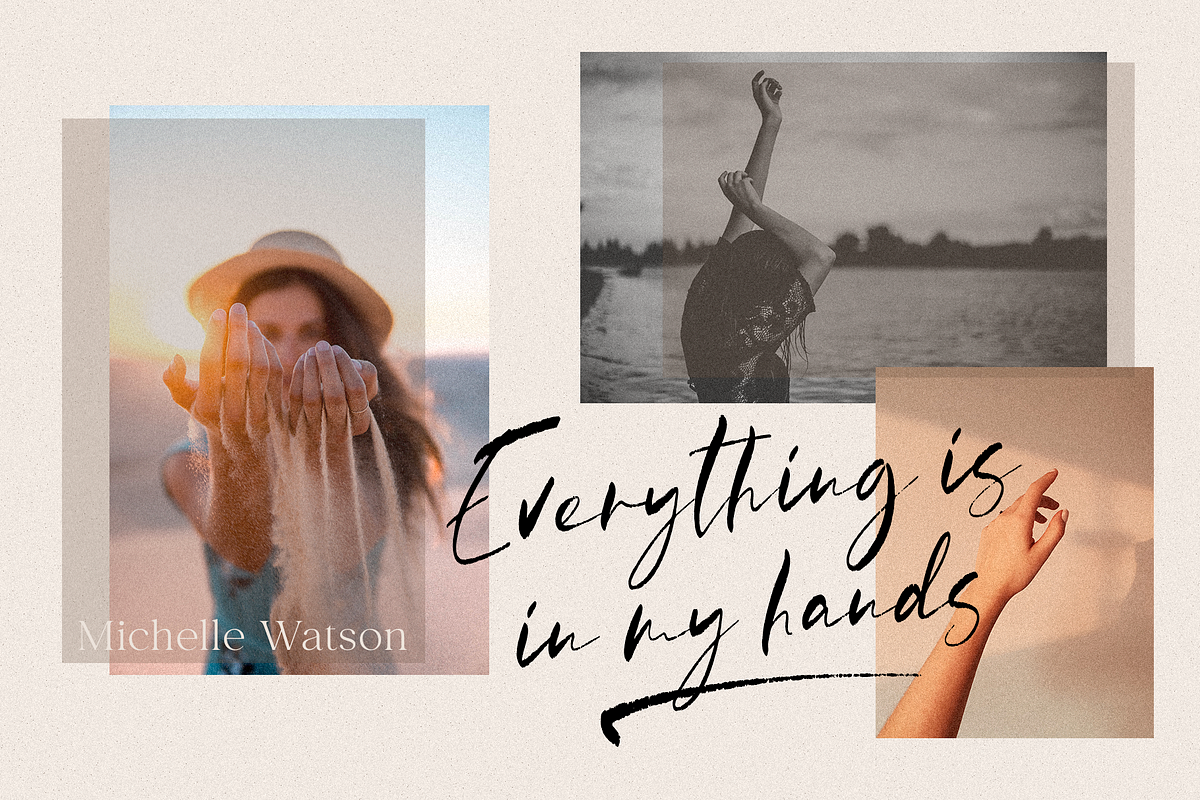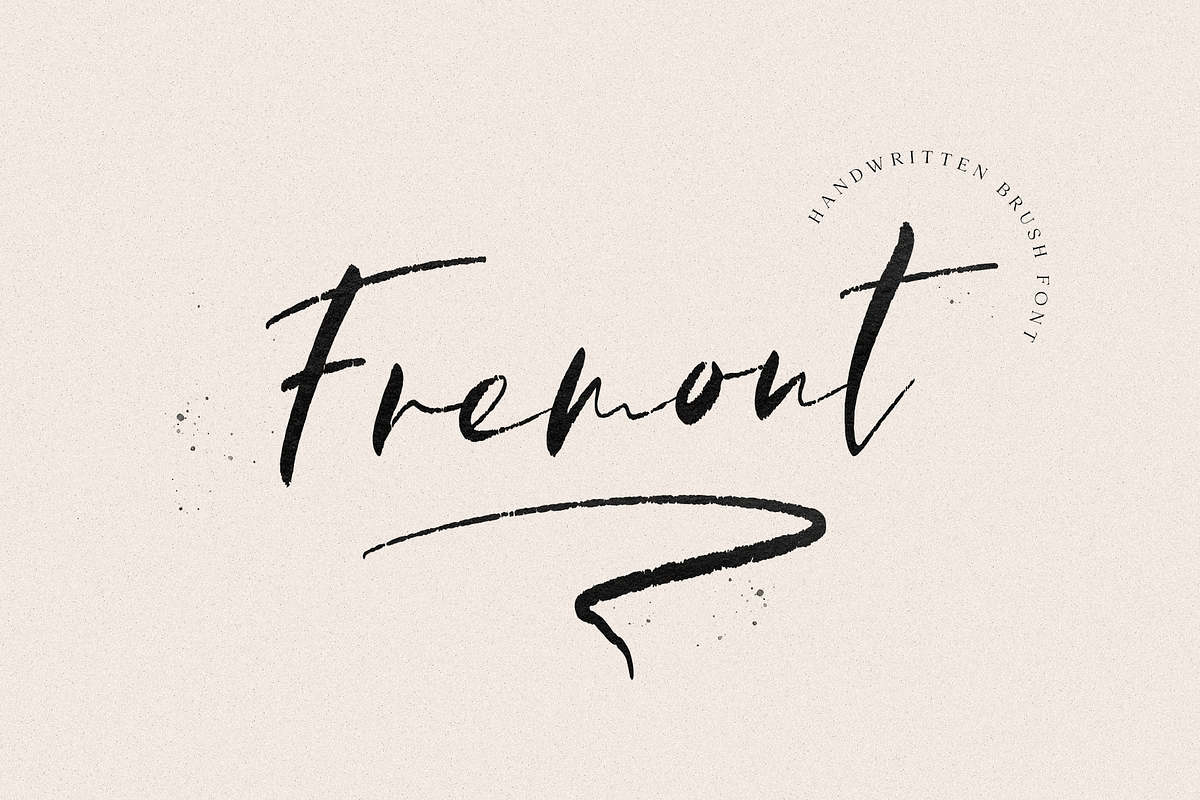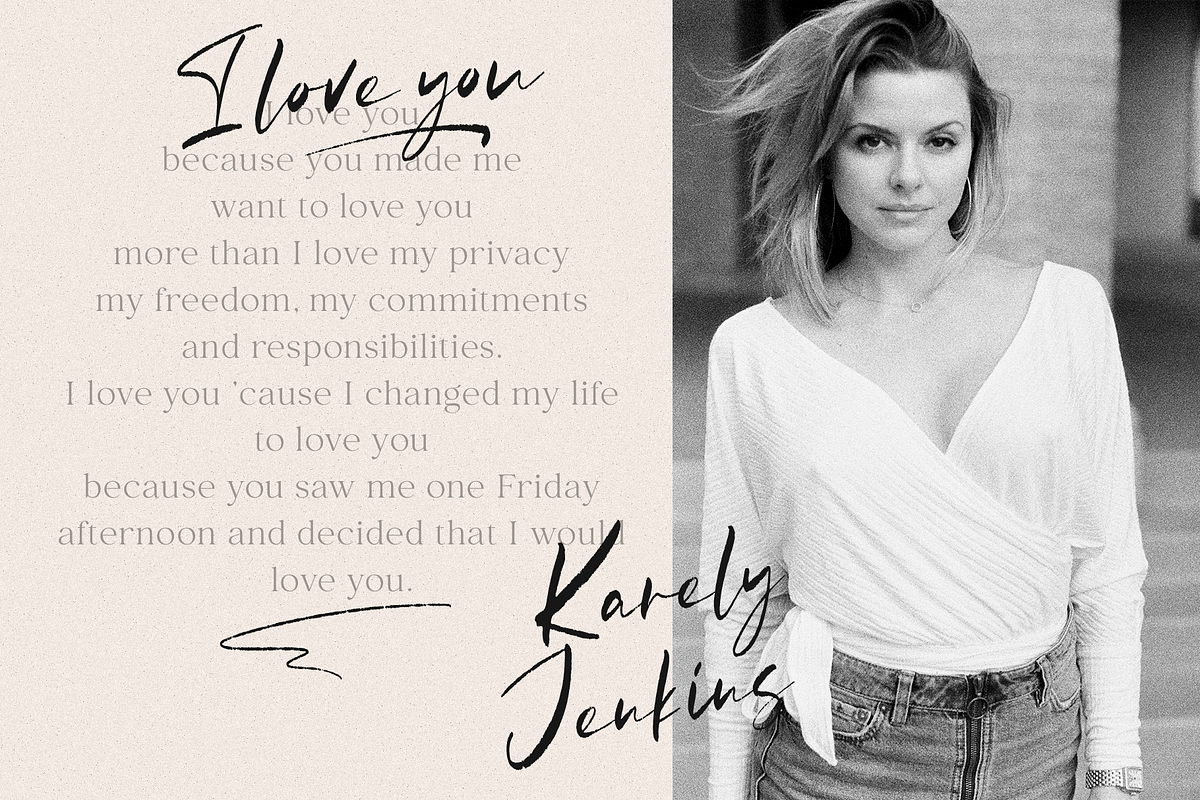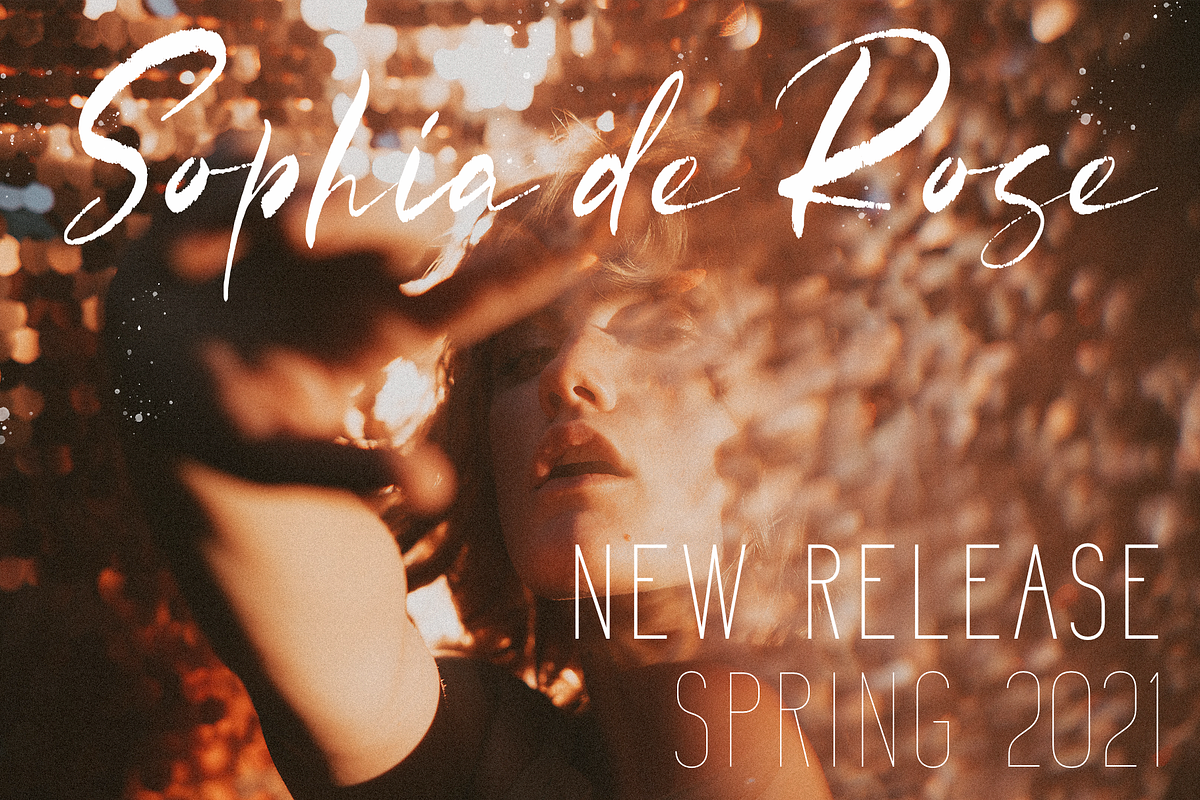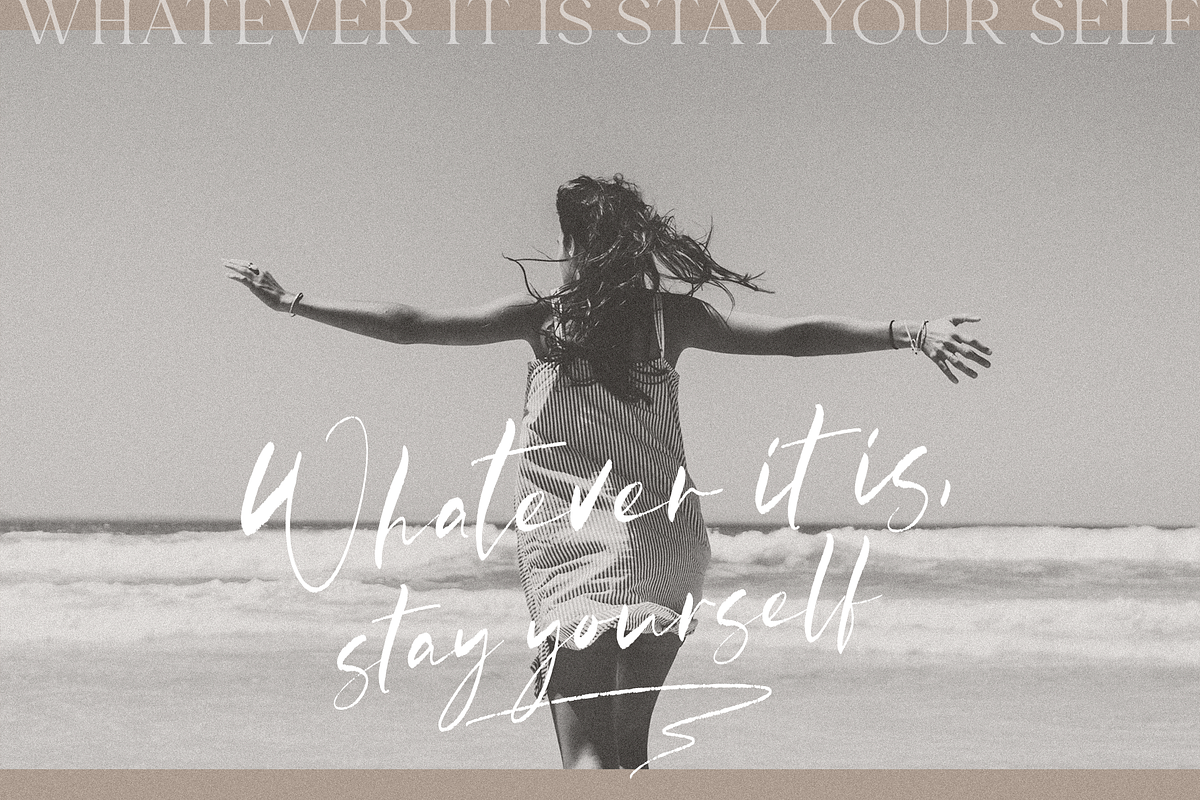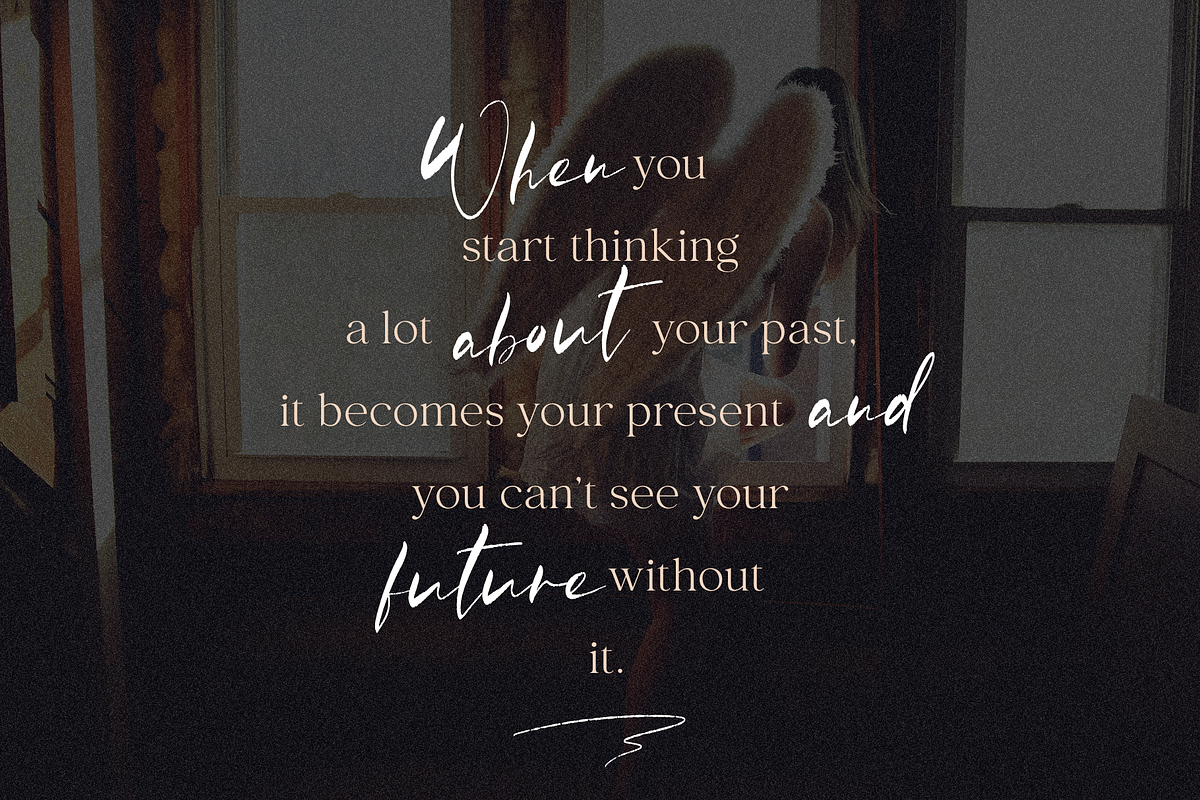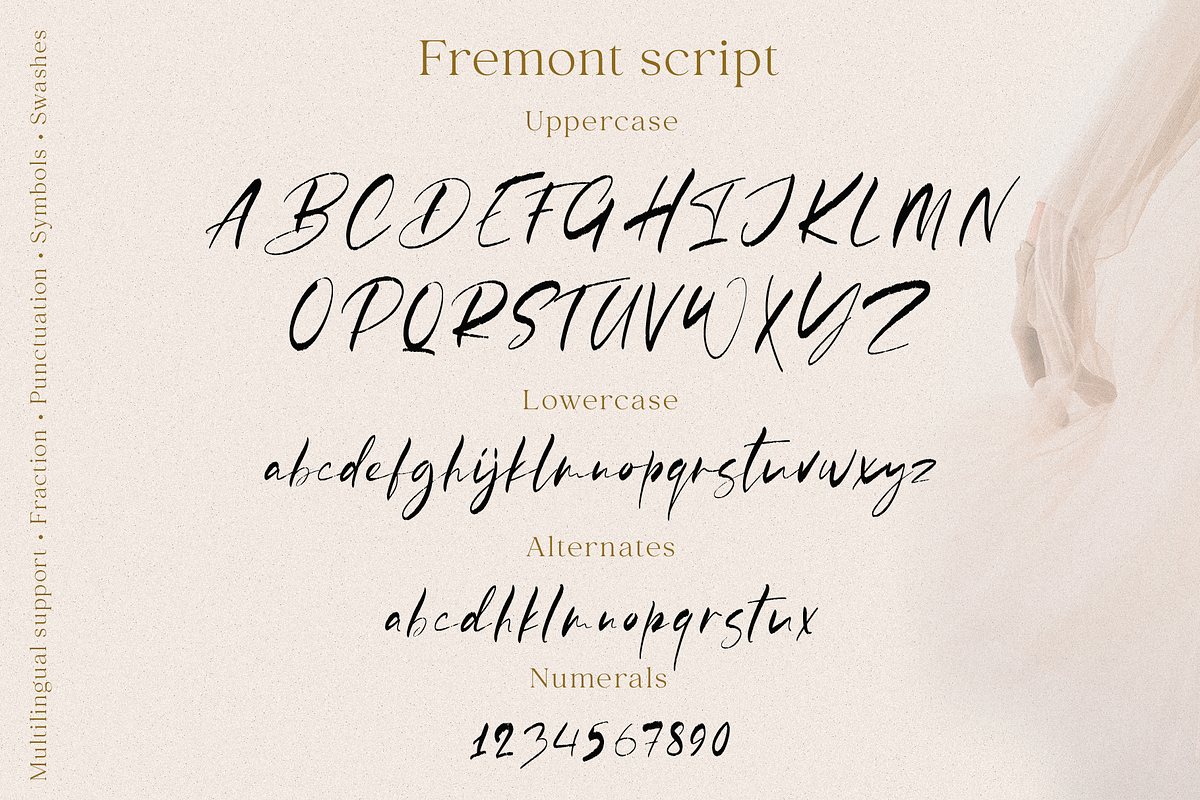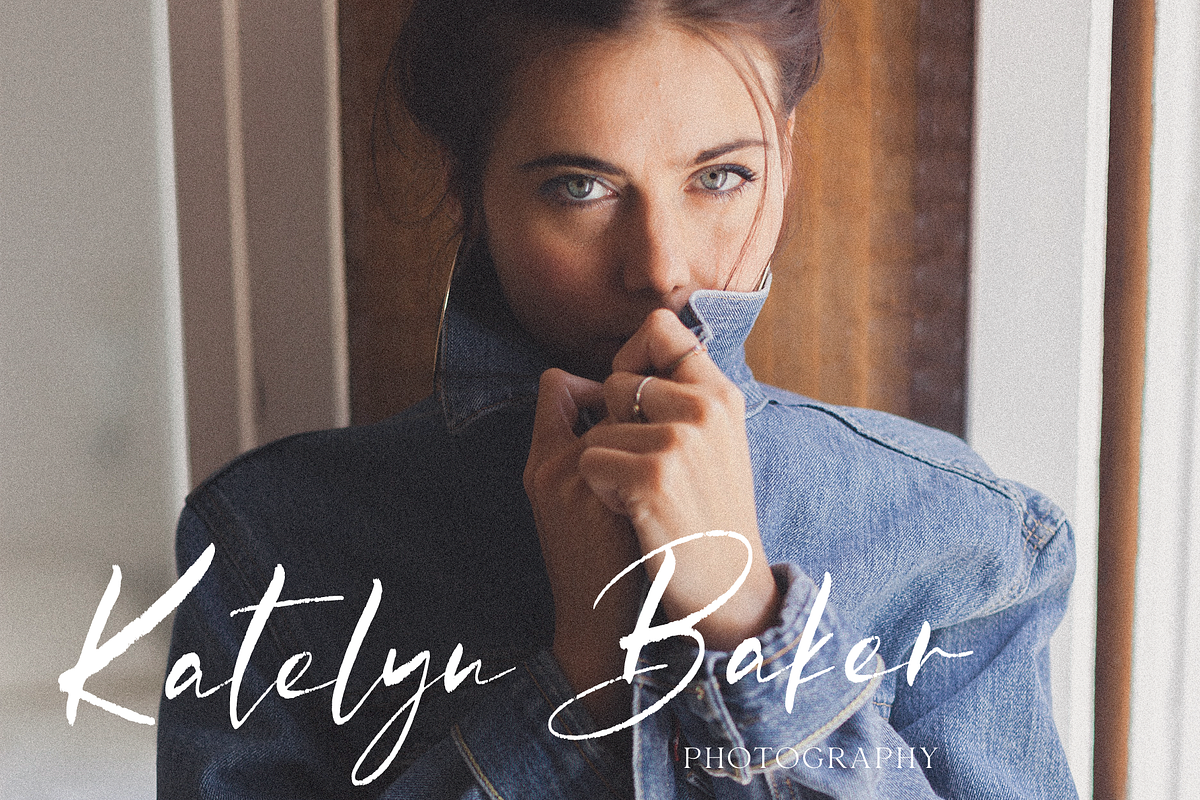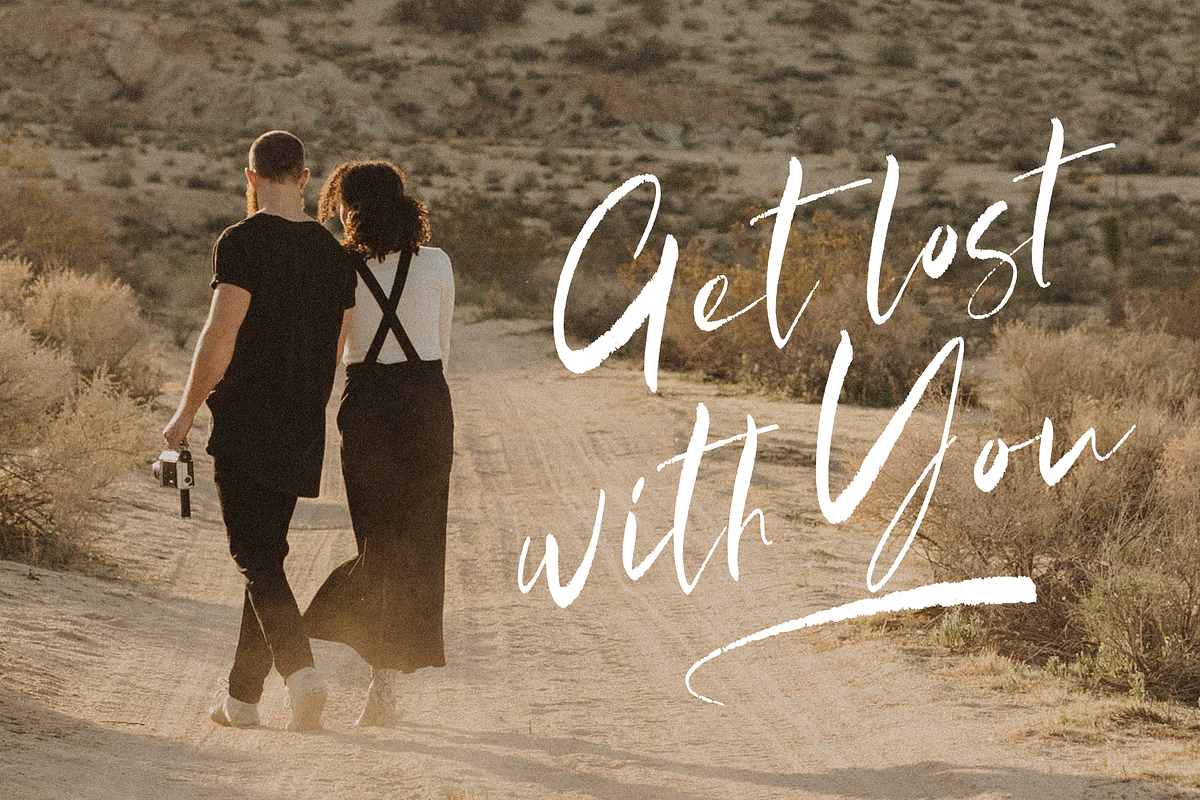
Fremont
Fremont This is a beautiful and elegant hand drawn font, will underline your individuality in any project. Its relaxed feel makes this font incredibly versatile, fitting a wide range of designs. You can also use them to create a logo or templates, invitations, blog, branding, marketing, book covers, magazines, advertising, stationery, logo design and much more. This font is easy to use has OpenType features, and supported PUA encoded.
Following international symbols support: ÀÁÂÃÄÅĄÇĆÈÉÊËĘÌÍÎÏÐÑŃŁÒÓÔÕÖØÙÚÛÜŚŠŸÝŹŻŽßàáâãäåçèéêëìíîïðñòóôõöøùúûüýÿąćęłńśšźżž
Full alphabet with Uppercase and Lowercase A-z
Numbers, fractions
Punctuation and symbols
Alternates for lowercase
Swashes